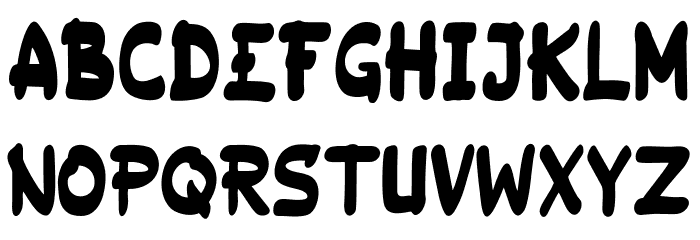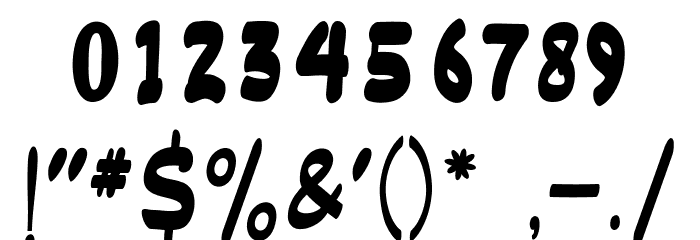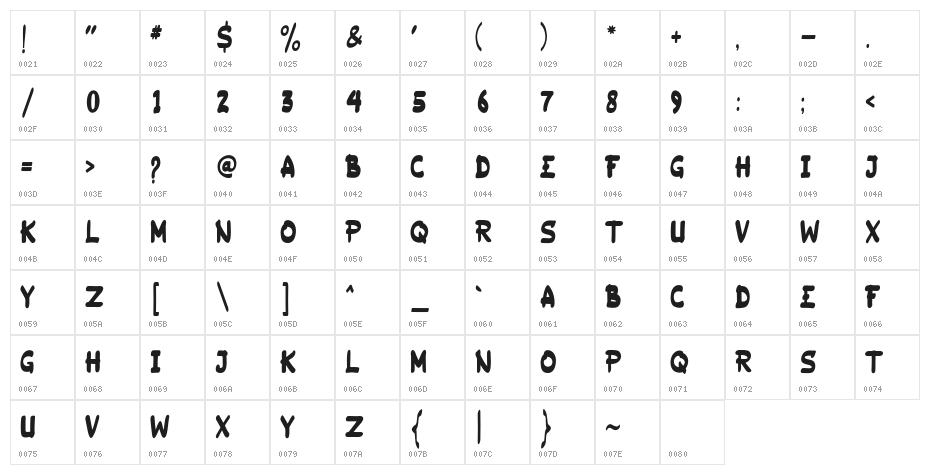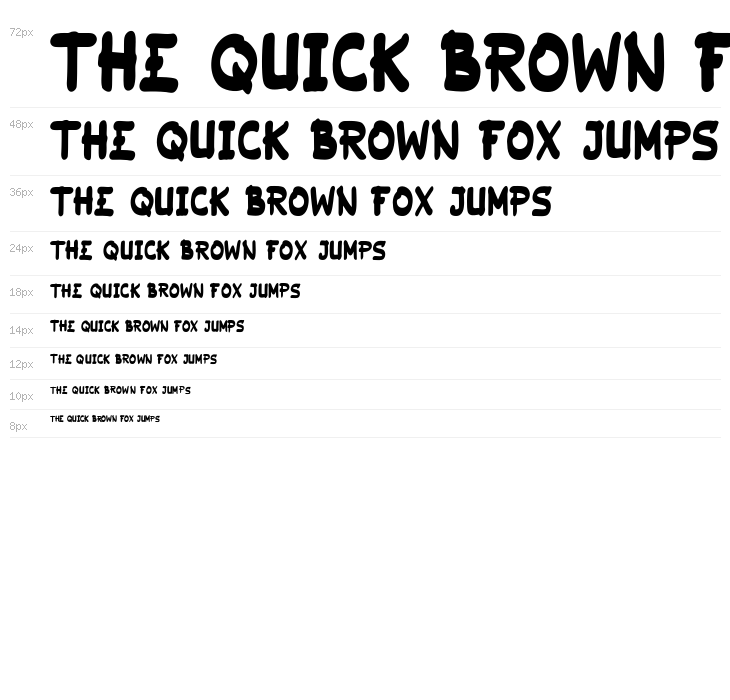
RINDAYA Font
This font features a bold and playful design, characterized by its thick, rounded strokes and a slightly irregular shape that adds a sense of whimsy and creativity. The letters are well-spaced, ensuring readability while maintaining a unique, hand-drawn aesthetic. The numbers and special characters follow the same style, making the font versatile for various uses. Its boldness and distinctiveness make it stand out, suitable for projects that require a fun and engaging visual element.
A bold, playful font with rounded, irregular strokes.
- Proposed Projects: Ideal for children's books, playful branding, posters, and creative design projects.
- Overall Style: Playful, Creative